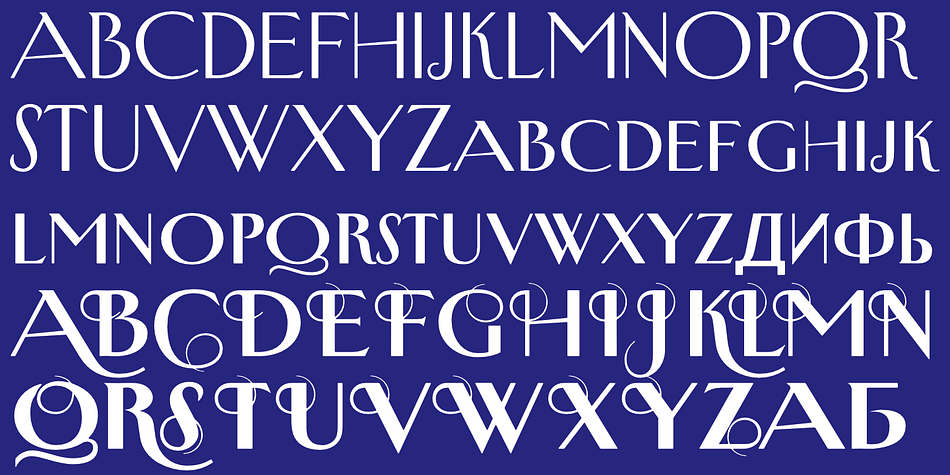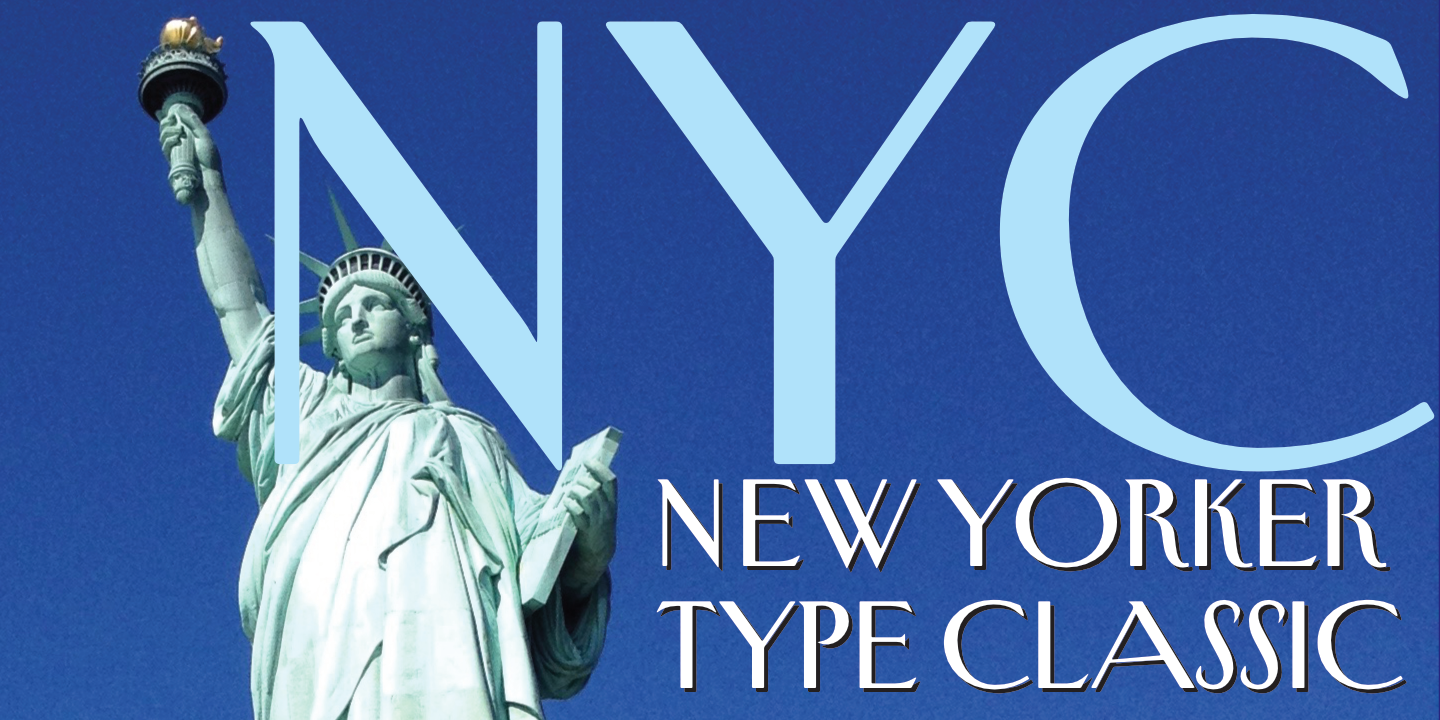
New Yorker Type Classic
Designed by Gert Wiescher, New Yorker Type Classic is an art deco and display serif font family. This typeface has seven styles and was published by Wiescher-Design.
New-Yorker-Type was one of the first typefaces I tried my hand at in 1985. I meant it as a revival of the typeface used by the New Yorker magazine. I did not scan it. I just looked at the type and redrew it completely by hand. Only much later did I come to know, that there is a bundle of similar typefaces of that period. Rea Irvin’s design for New-Yorker magazine was just one of them, maybe the best.
In the next step I repaired some of the mistakes that I made more than thirty years ago.
Now on the eve of 2020 I gave the font a complete overhaul and added a set of Swash Initials, Cyrillic and Greek glyphs and many ligatures. The font now has 1075 glyphs and is all set for most latin writing systems. On top of that I made two versions, a Classic one with rounded corners and a pointed Pro version for a more up-to-date look. Take your pick.